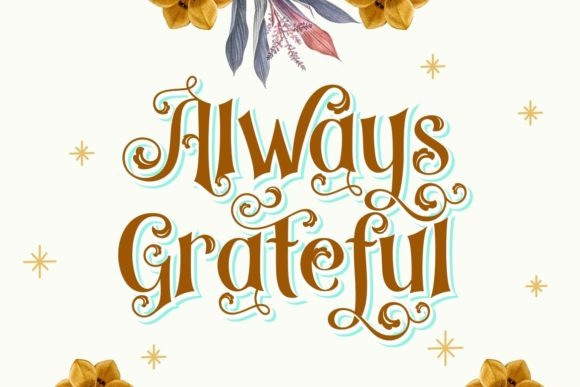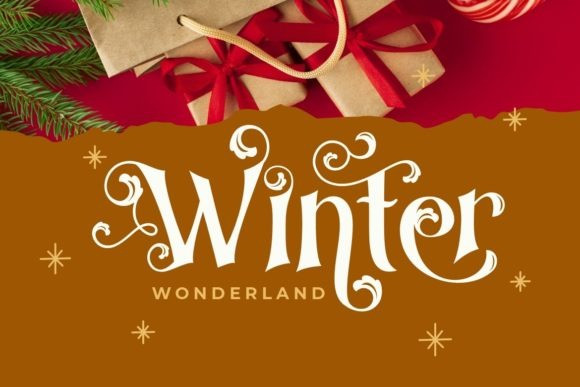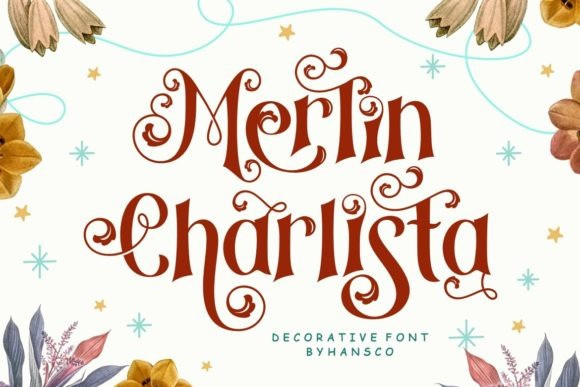
Merlin Charlista Font
Merlin Charlista Font is a decorative font that comes with swirls and a curly feel. Use this font to add that special touch to any design idea you can think of! You can use it to create beautiful Christmas cards, greeting cards, thank you cards, wedding invitations and designs, quotes, and more!